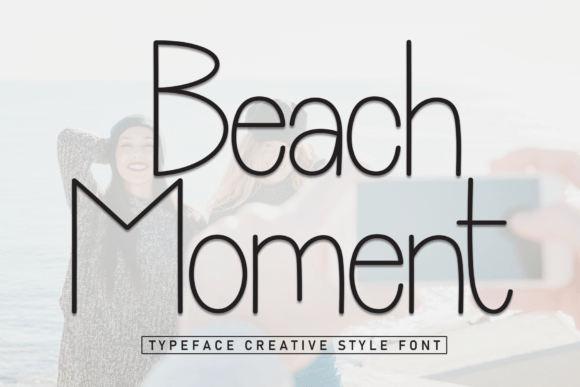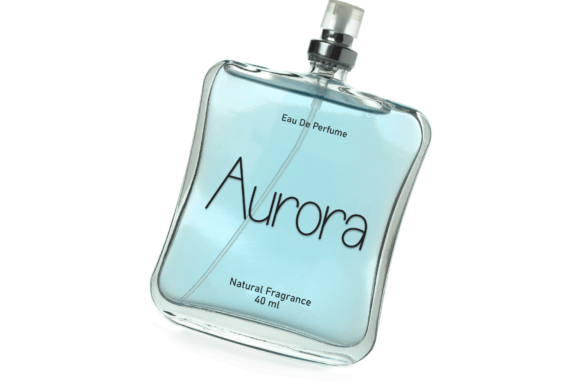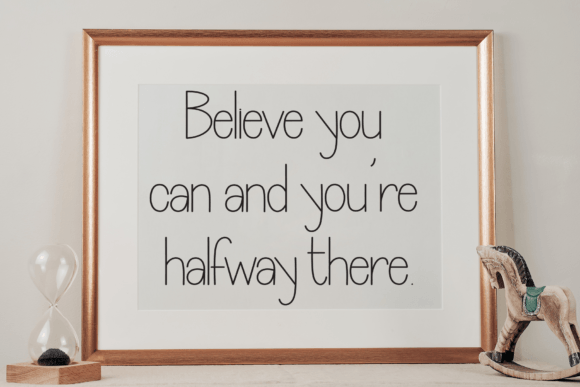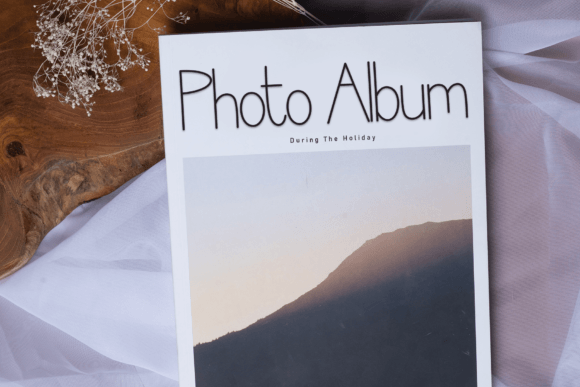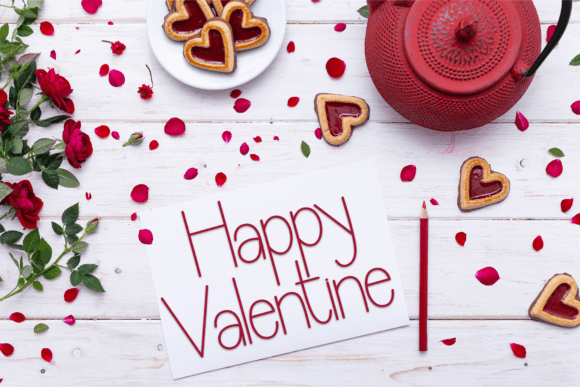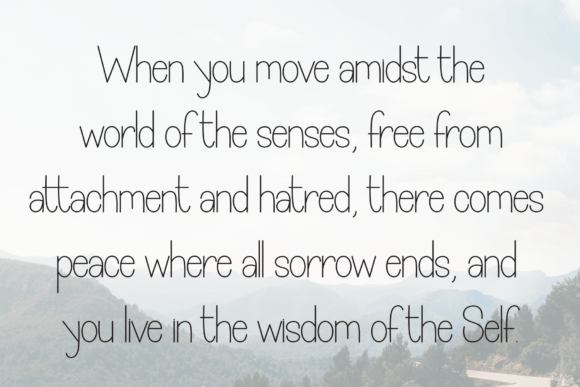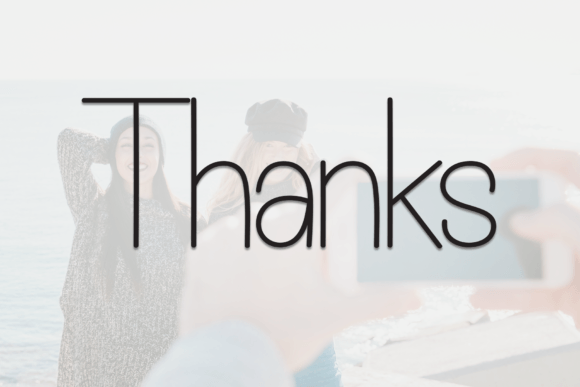
Creating Memories, One Design at a Time
Have you ever sat on a beach at sunset, watching the waves gently roll in, and felt a sense of pure joy and contentment wash over you? For many of us, these moments are what make life truly special – and they’re the inspiration behind some of our most cherished design projects.
Enter Beach Moment Font, a charming handwritten display font designed to capture the warmth and playfulness of life’s most memorable moments. Whether you’re creating a wedding invitation, a personal card, or any other special design, this font adds a touch of whimsy and personality to your work. For designers, Beach Moment Font is a valuable tool for injecting a sense of fun and joy into even the most formal compositions.
Beach Moment Font Key Features
- Font Style: Casual, Script Font
Beach Moment Font Review
At first glance, Beach Moment Font caught my eye with its unique, beachy vibe. It’s perfect for designers looking to create a laid-back, summery feel in their projects. Here’s what I think:
- ✨ Unique and creative design: The font has a distinct personality that sets it apart from more common fonts.
- ✨ Versatile: It can be used for a variety of projects, from beach-themed websites to travel brochures.
- ✨ Friendly and approachable: The font is easy to read and understand, making it perfect for use in text-heavy content.
- ⚠️ Limited flexibility: The font is quite specific in its design, which can make it difficult to adapt to different styles or themes.
- ⚠️ May not be suitable for formal projects: The laid-back feel of the font may not be suitable for more formal or professional projects.
Overall, I think Beach Moment Font is a great addition to any designer’s toolkit. It’s perfect for projects that require a relaxed, beachy vibe. While it may have some limitations, its unique design and versatility make it a great choice for designers looking to add some personality to their work.
Use the Beach Moment Font to create a relaxed and casual atmosphere in your designs.
Pair it with images of beaches, palm trees, or other tropical elements to create a cohesive look.
Experiment with different font sizes and colors to add visual interest to your designs.
The Beach Moment Font is perfect for:
Summer-themed invitations and greeting cards.
Beach-inspired social media graphics and posts.
Tropical-themed wedding invitations and decorations.
Alternatives to Beach Moment Font
Ostrich Sans is a modern sans-serif font perfect for creating a sophisticated and elegant look. It’s ideal for use in branding, advertising, and editorial design. Compared to Beach Moment Font, Ostrich Sans has a more refined and polished feel, making it suitable for a wider range of applications.
Great Vibes is a beautiful script font that captures the carefree spirit of the beach. It’s perfect for use in invitations, social media graphics, and other creative projects where a touch of whimsy is desired. While Beach Moment Font has a more playful, handwritten feel, Great Vibes is more elegant and sophisticated.
Lato is a clean and modern sans-serif font that’s perfect for use in corporate branding, digital products, and websites. It’s highly legible and versatile, making it a great alternative to Beach Moment Font for designers who need a clean and professional look.
Playfair Display is a luxurious and elegant script font that’s perfect for use in high-end branding, advertising, and editorial design. While Beach Moment Font has a more relaxed, beachy feel, Playfair Display is more formal and sophisticated, making it ideal for use in luxury brands and high-end projects.